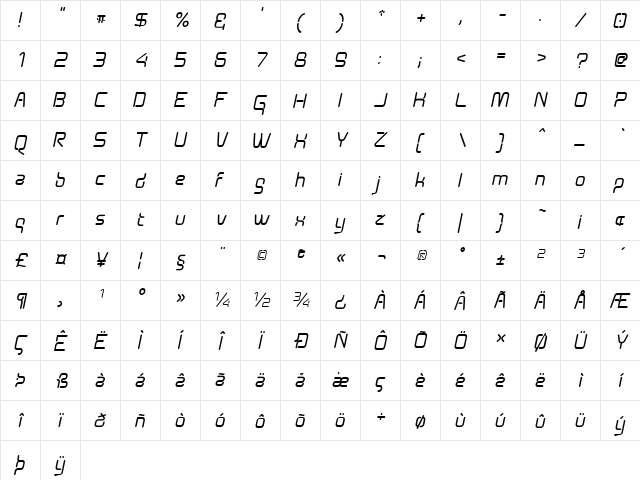
Aunchanted Bold Oblique Regular Font Preview
Design Context for Aunchanted Bold Oblique Typeface
Aunchanted Bold Oblique takes a measured approach to typography — its balanced proportions and neutral character make it a reliable workhorse for both digital and print work. The slanted form adds forward momentum and visual energy. The heavy weight commands attention and anchors typographic hierarchies.